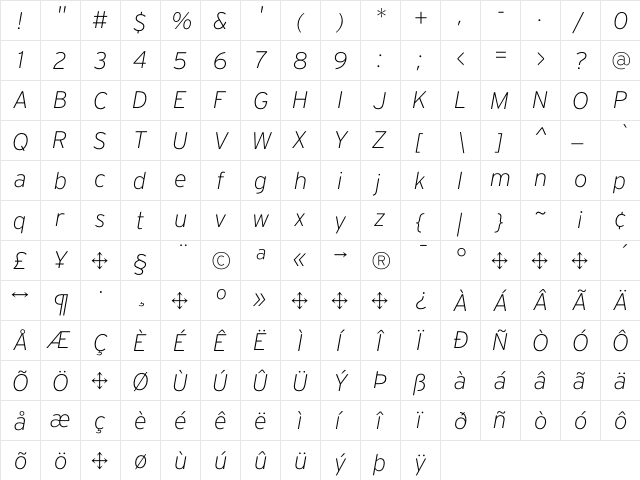
Interstate ExtraLight Italic Font Preview
Design Context for Interstate Typeface
Interstate offers clean, dependable letterforms without strong stylistic allegiance, making it a practical choice for designers who need flexibility. The dynamic lean of this cut emphasises speed and emphasis in any layout. The delicate stroke weight brings airiness and refinement to layouts.
Pro Tip: Try Interstate for annotation and caption copy alongside an upright companion — the contrast in angle creates a dynamic but ordered typographic system.